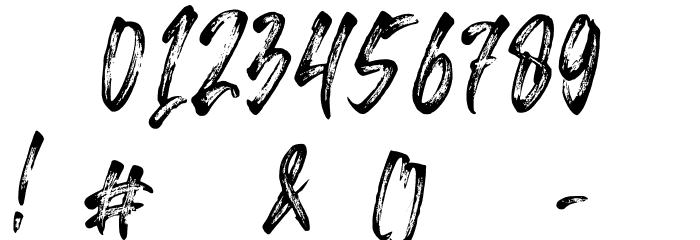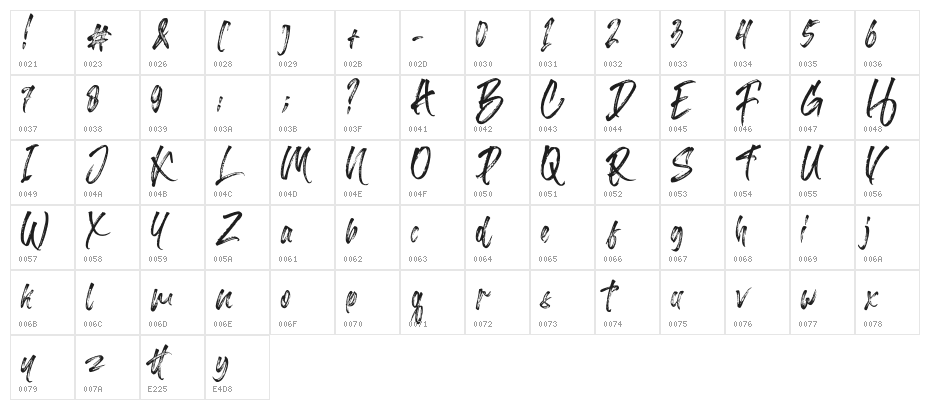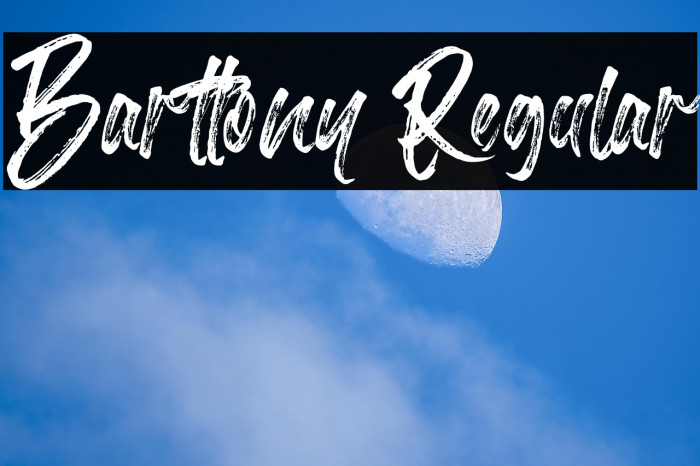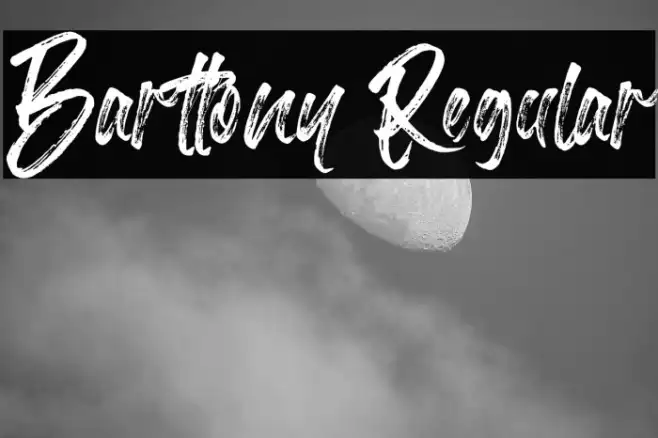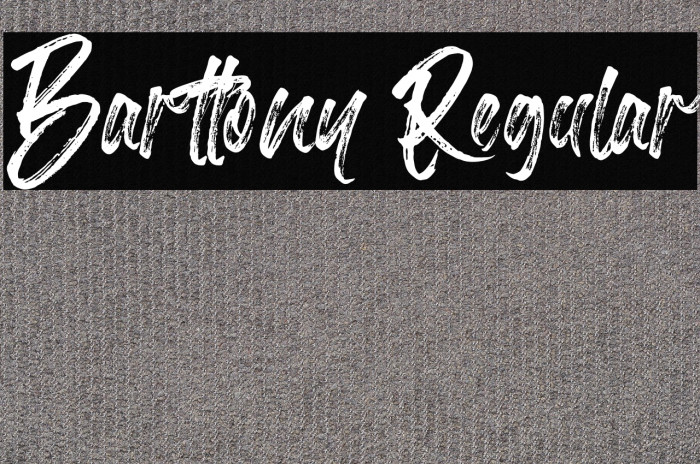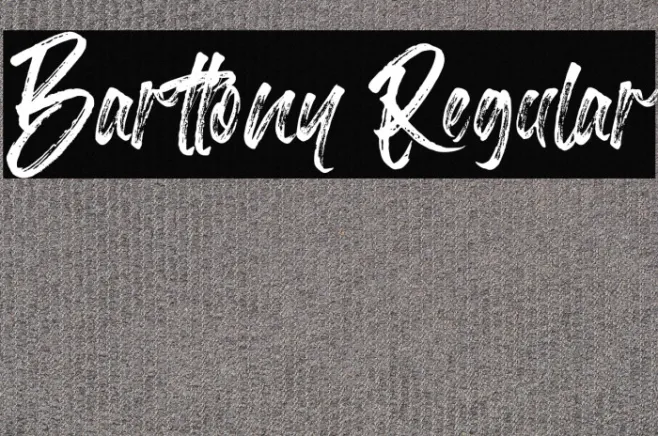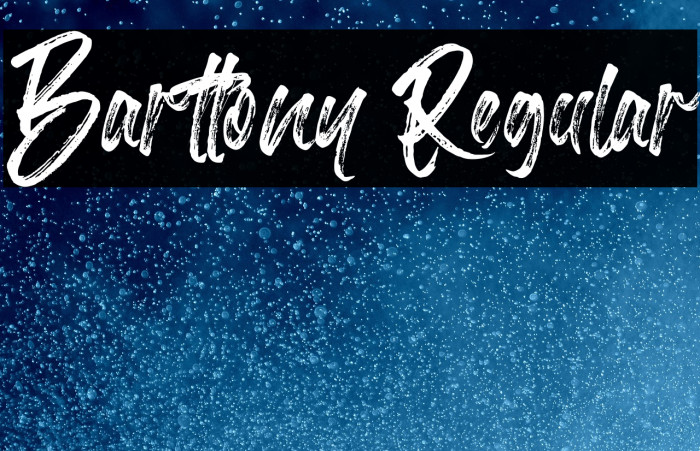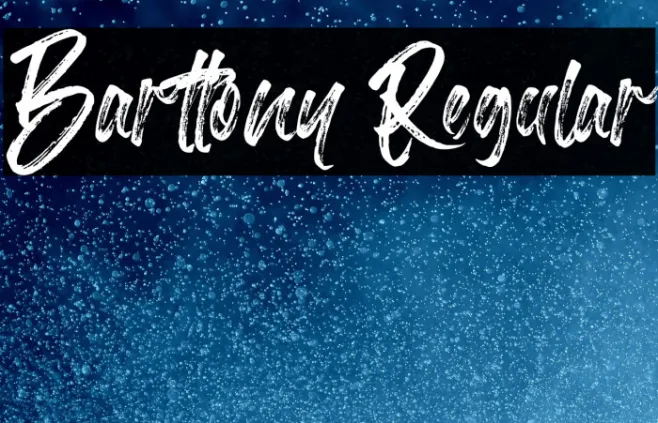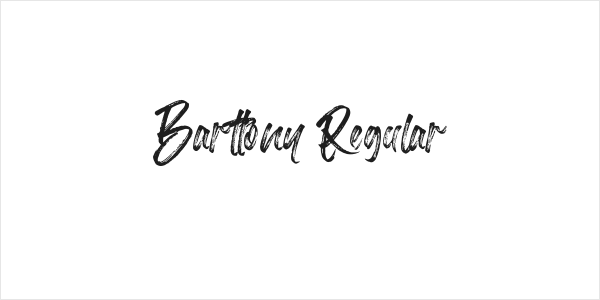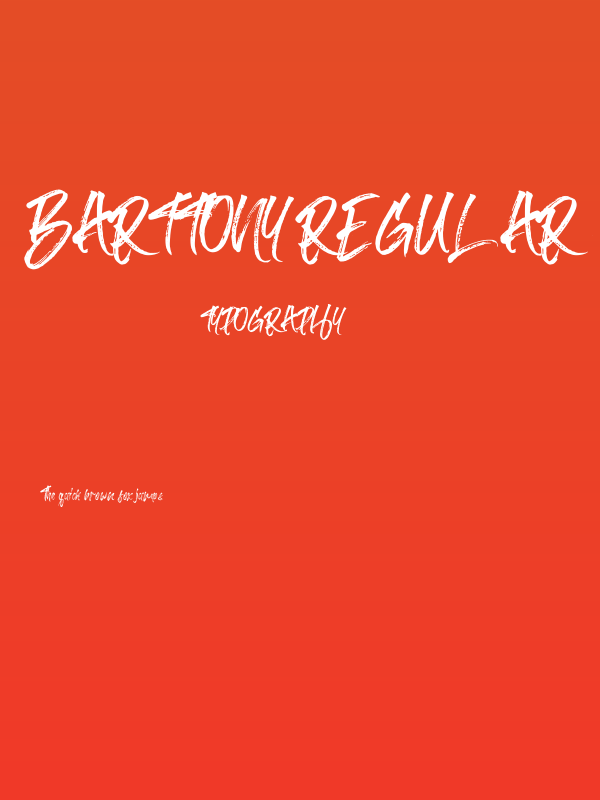
Barttony Regular Font
Barttony Regular Description
This font exhibits a bold, expressive style with a brush-like texture, giving it a dynamic and energetic appearance. The strokes are uneven, with varying thickness that adds a sense of movement and spontaneity. The uppercase and lowercase letters maintain a consistent flow, while the numerals and special characters integrate seamlessly with the overall design. This font's artistic flair makes it suitable for creative and informal applications, where a touch of personality is desired.
| Proposed Projects | Ideal for posters, branding, album covers, and creative projects that require a bold, artistic touch. |